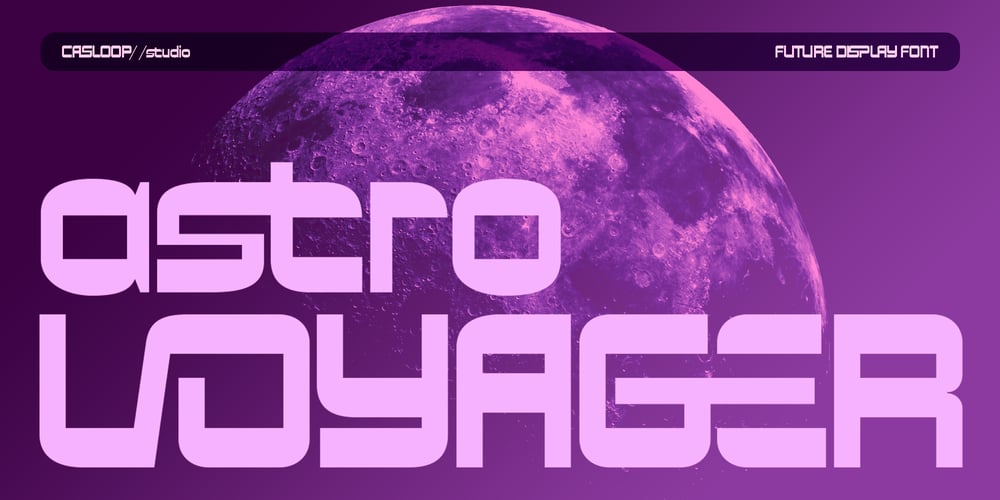
CAS Astro Voyager Font Family was designed by Wantara Putra and published by Casloop Studio. CAS Astro Voyager contains 1 styles and family package options. Introducing Astro VoyagerA Celestial Fusion of Tradition and Futuristic Exploration Astro Voyager, an Experimental Space Sans Serif font, seamlessly blends cosmic authenticity and futuristic charm. Inspired by celestial wonders and the exploration of the unknown, it introduces an otherworldly touch to modern design. The humanist natural flow of Astro Voyager captures the essence of space exploration integrated into Latin alphabets, resulting in a unique and original fusion.Experience the mesmerizing impact of Astro Voyager across various applications, from websites, packaging, logos, and branding to album covers, 3D projects, and posters. This font doesn’t just stun; it satisfies with its cosmic, eccentric twist and vibrant, futuristic energy. The visual consistency, memorability, and striking harmony make it an innovative and dynamic choice for modern design.Astro Voyager is more than a font; it’s an impactful expression of cosmic landscapes, interstellar vibes, and futuristic styles. Its versatility and expressiveness make it ideal for a multitude of contexts, creating a cohesive and understated aesthetic. The font’s unique design, inspired by celestial elements, brings a level of innovation and exploration to the overall look.Supported Languages: Bosnian, Catalan, Czech, Danish, German, English, Gill, Spanish, Estonian, Finnish, French, Brice, Irish, Croatian, Hungarian, Icelandic, Italian, Lithuanian, Tan, Latvian, Maltese, Dutch, Norwegian, Polish, Haas, Portuguese, Bebas, Romanian, Slovak, Slovenian, Albanian, Swedish, Turkish.Features : Uppercase & lowercase Numbers and punctuation Ligatures Multilingual